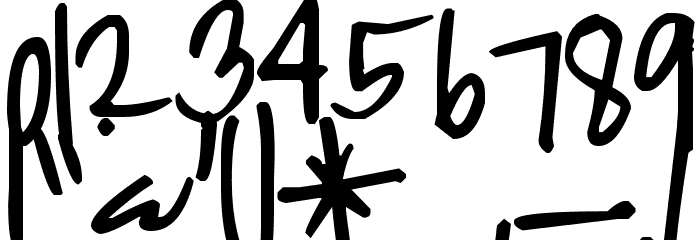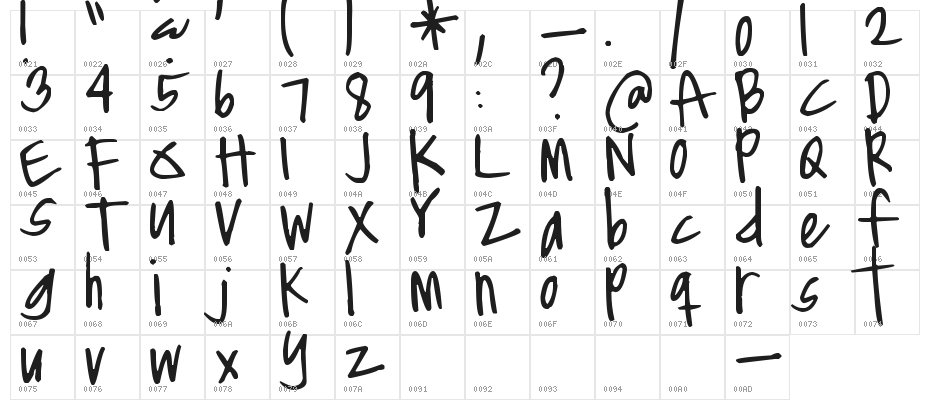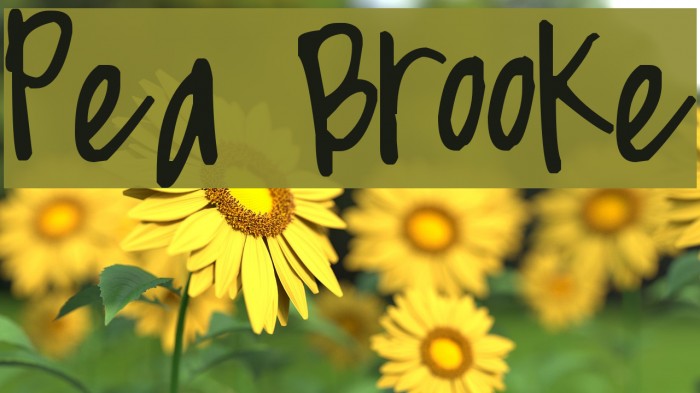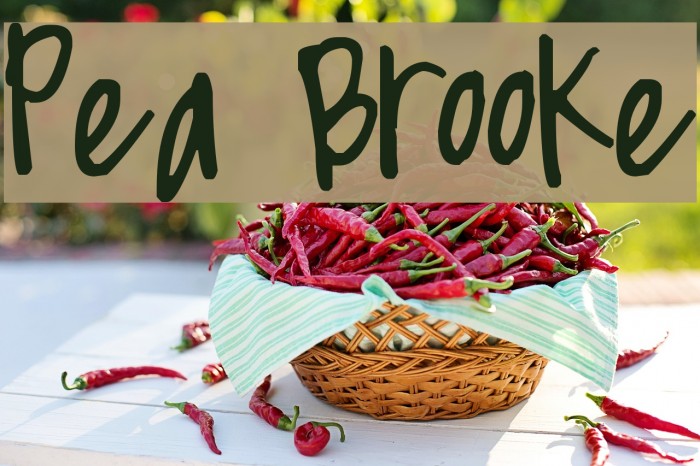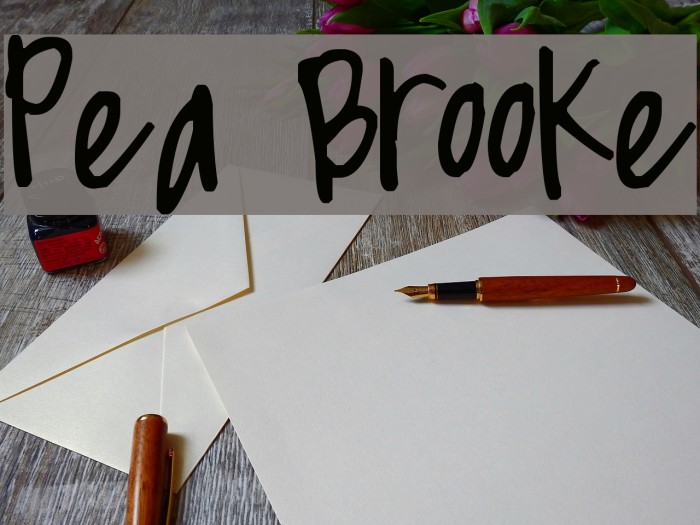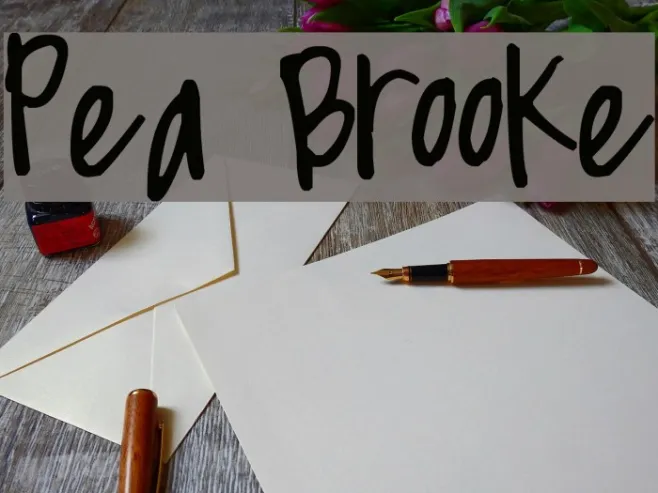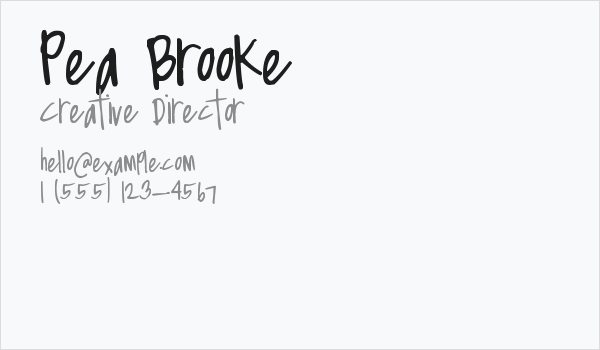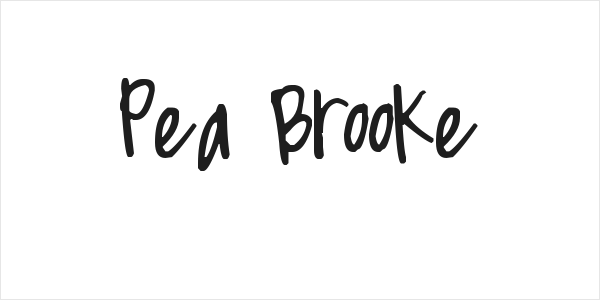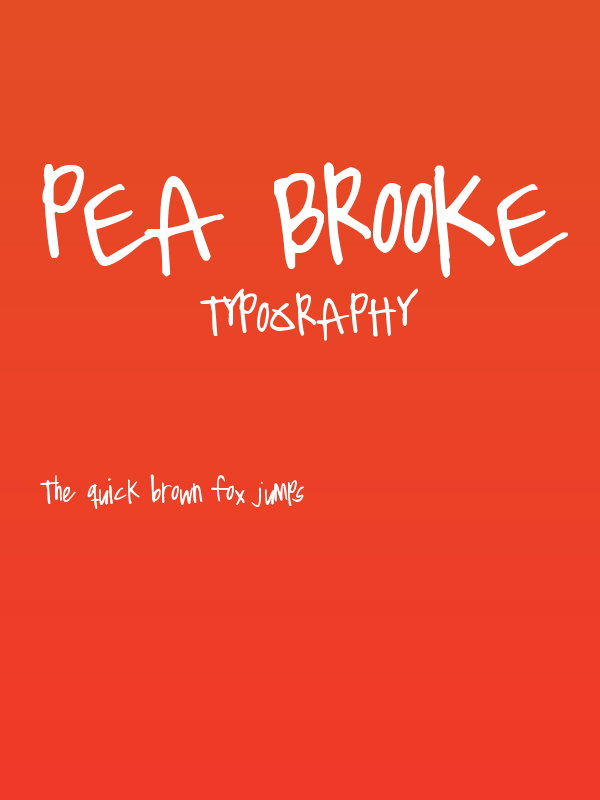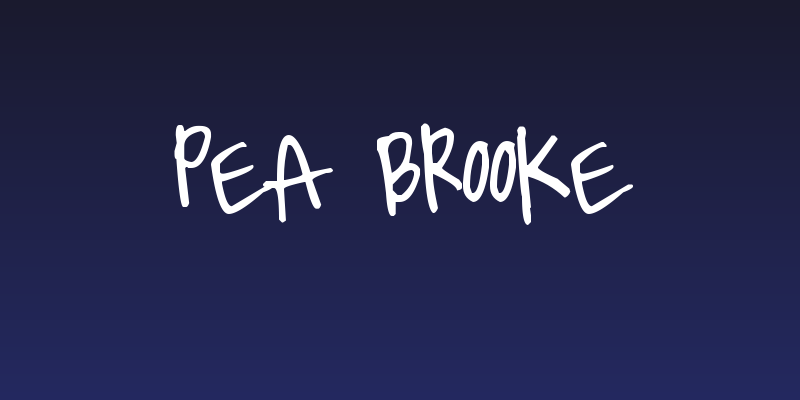
Pea Brooke Font
Pea Brooke Description
This font features a playful and casual handwritten style, characterized by its bold and slightly irregular strokes. The letters have a lively and spontaneous feel, with varying heights and widths that add to its informal charm. The uppercase letters are tall and slightly narrow, while the lowercase letters maintain a consistent flow with rounded edges. Numbers and special characters follow the same energetic style, making the font versatile for creative projects. The overall appearance is friendly and approachable, suitable for designs that require a personal touch.
| Proposed Projects | Ideal for greeting cards, children's books, personal blogs, and informal branding. |